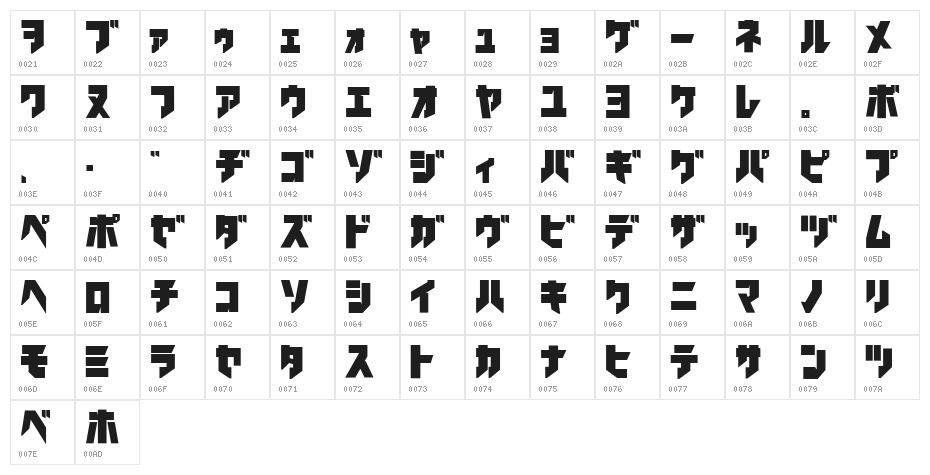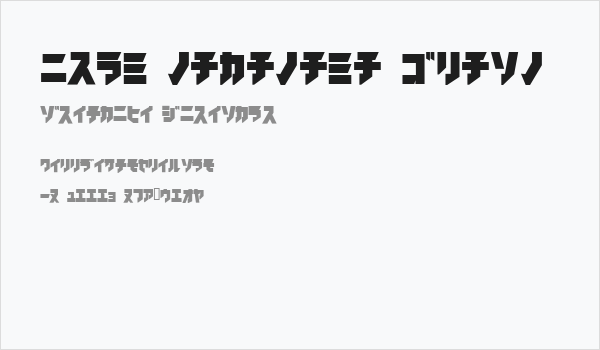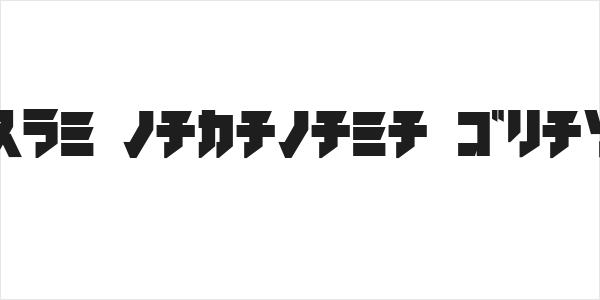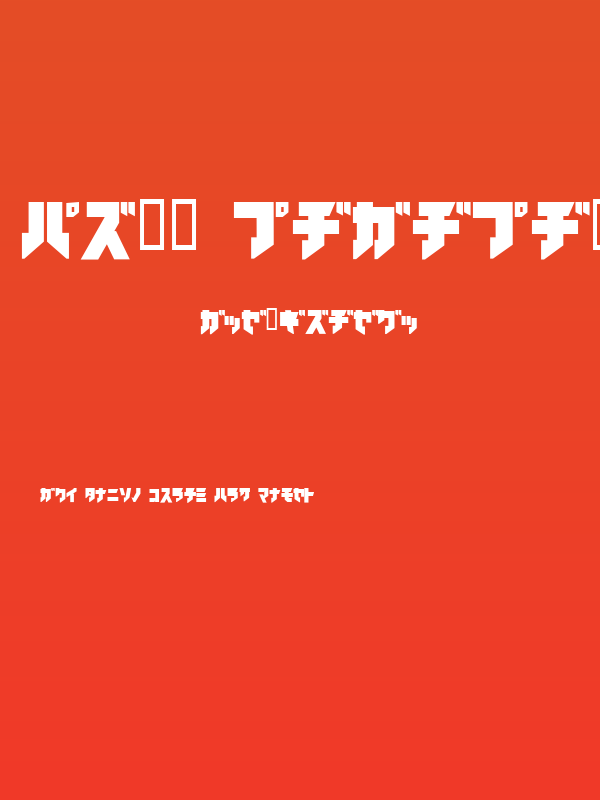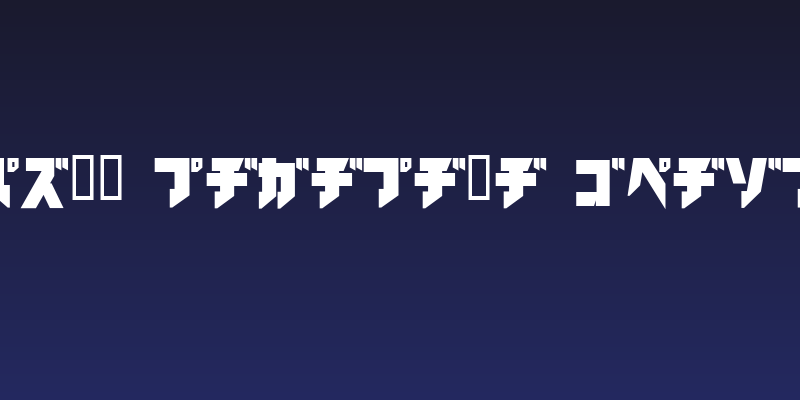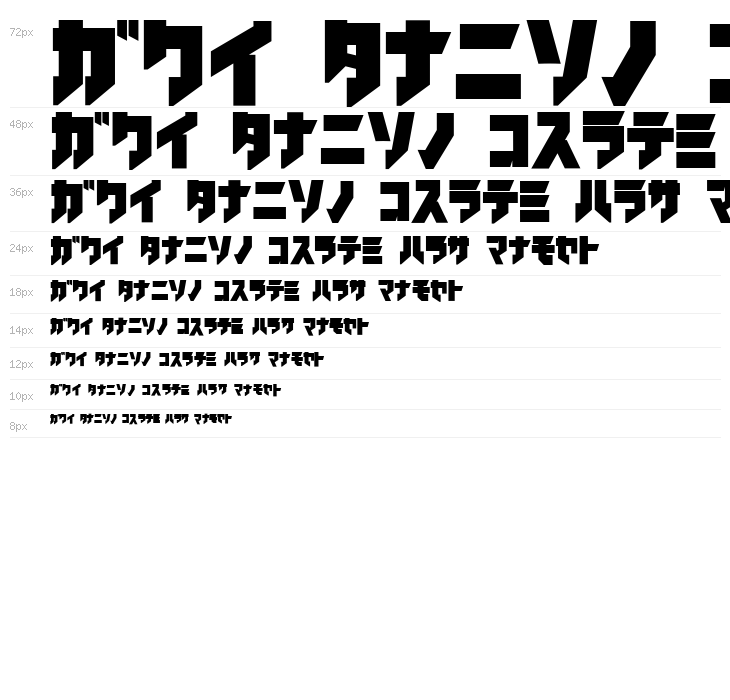
iron katakana Black Font
iron katakana Black Description
This font features bold, geometric shapes with a strong, impactful presence. The characters are designed with sharp angles and a blocky structure, giving them a modern and industrial feel. The strokes are thick and consistent, providing a uniform appearance across all characters. The font's style is reminiscent of digital or futuristic themes, making it suitable for projects that require a strong visual impact. The spacing between characters is tight, enhancing the compact and cohesive look of the text. This font is ideal for use in headlines, posters, and other display purposes where attention-grabbing typography is needed.
| Use Case | Headlines, Display text, Posters |
| Proposed Projects | Ideal for headlines, posters, branding, and digital media projects. |